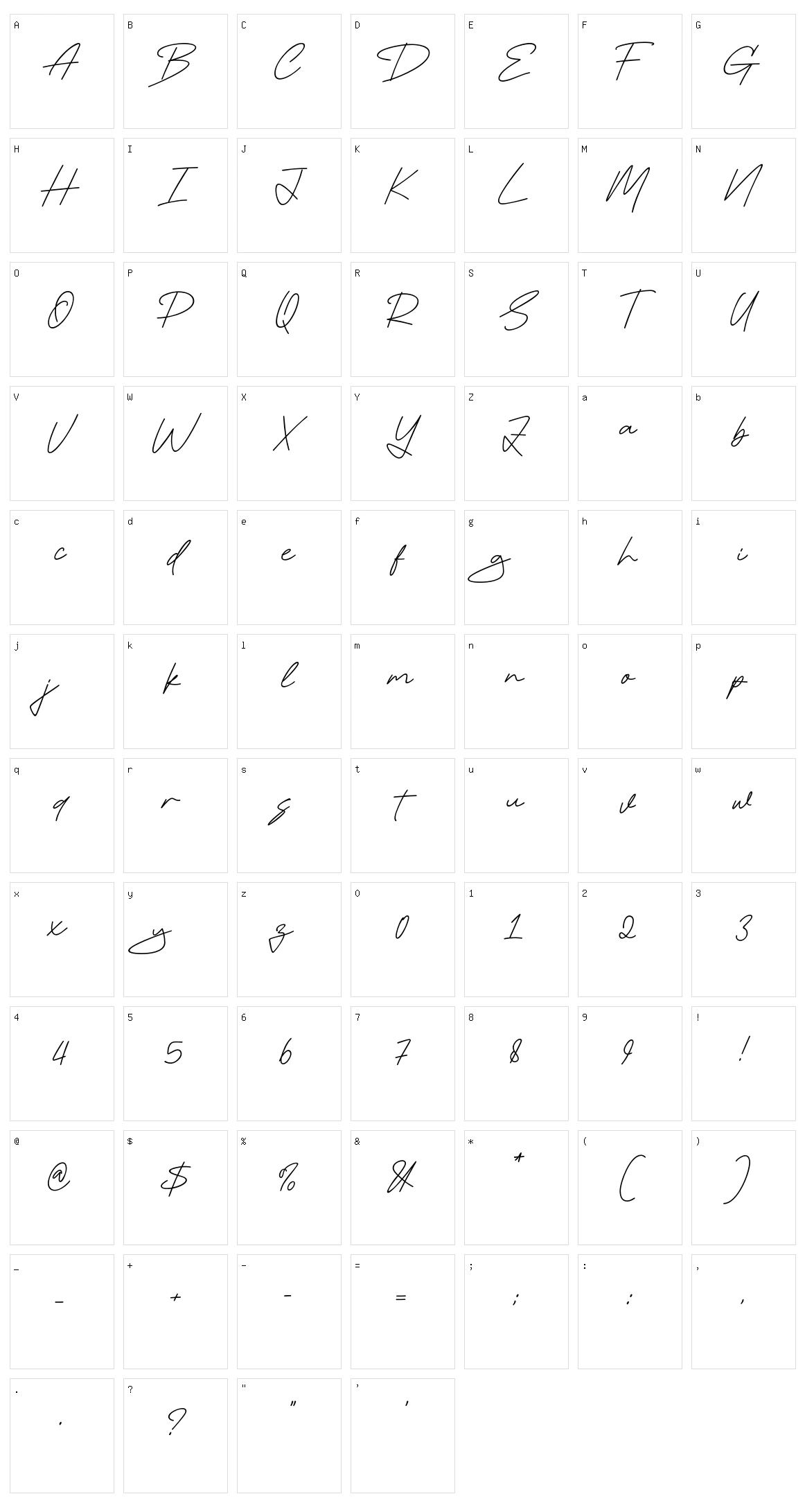
The free font Delight Sunset is carefully designed by Khurasan, showcasing a thoughtful balance of creativity and usability and falls under the Script font style. When you download the ZIP file, it contains only 439.72 KB of font files, making it lightweight and quick to download. Please review the license details below to understand permitted usage and distribution rights. If license information is not available, we recommend using this font for personal projects only or contacting the author directly for commercial usage permissions.